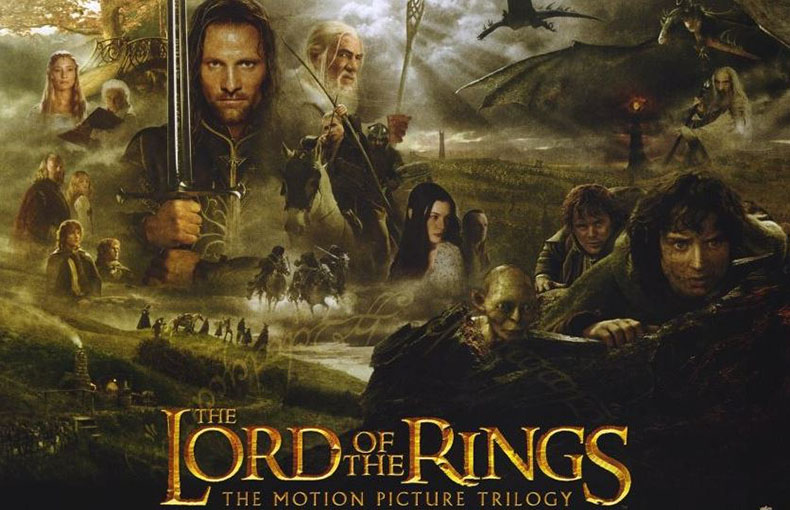
Logo, Display, Eroded
Lord of the Rings Font! The Lord of the Rings movie series is a famous fantasy adventure based totally on the novels by English author and scholar J.R.R. Tolkien.
The series consists of The Fellowship of the Ring, The Two Towers, and The Return of the King. It is the sixth highest-grossing movie series of all time, following Harry Potter, James Bond, Star Wars, Pirates of the Caribbean, and Shrek.
Fans love the complex world-building, epic battles, and unforgettable characters in this beloved film franchise.
The font used for the movie title in the poster is very comparable to Ringbearer, which was created with the aid of Pete Klassen. The font is free for private use only.
This typeface comes in a single style that contains 152 glyphs and 5502 binary stored kerning pairs. Furthermore, it also supports 66 different languages.
The features intricate lettering with stylized elements and curves that evoke a sense of medieval fantasy.
This typeface is good for use in background image designs, home decor designs, and so on related purposes. It is also suitable for letterhead designs, movie trailers, video editing purposes, and comic cover designs. It is also suitable for ebook covers and product packaging purposes.
Its popularity is a testament to the enduring legacy of Tolkien’s literary universe and the enduring fascination with Middle-earth among fantasy fans worldwide.
What is the Lord of the Rings font?
The Lord of the Rings font is a type of writing style inspired by the famous fantasy book series and movies.
Is the font the same as the one in the movies?
The font is inspired by the movies and books, but it might not be exactly the same due to copyright rules.